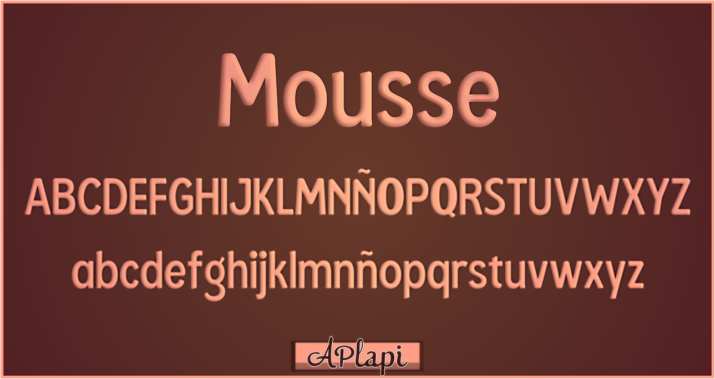
Font name: | Mousse |
Author: | APlaPi |
Note by APlaPi | |
"Mousse" is a soft and subtle, yet charming type which works well in mid-small sizes, and also in headings. If you like this font, feel free to show your thankfulness with the 'Get the author a handful of peanuts via Paypal' button misnamed 'Donate to the Author' situated right below the download button on the right of this page. For any other information please mail me. |